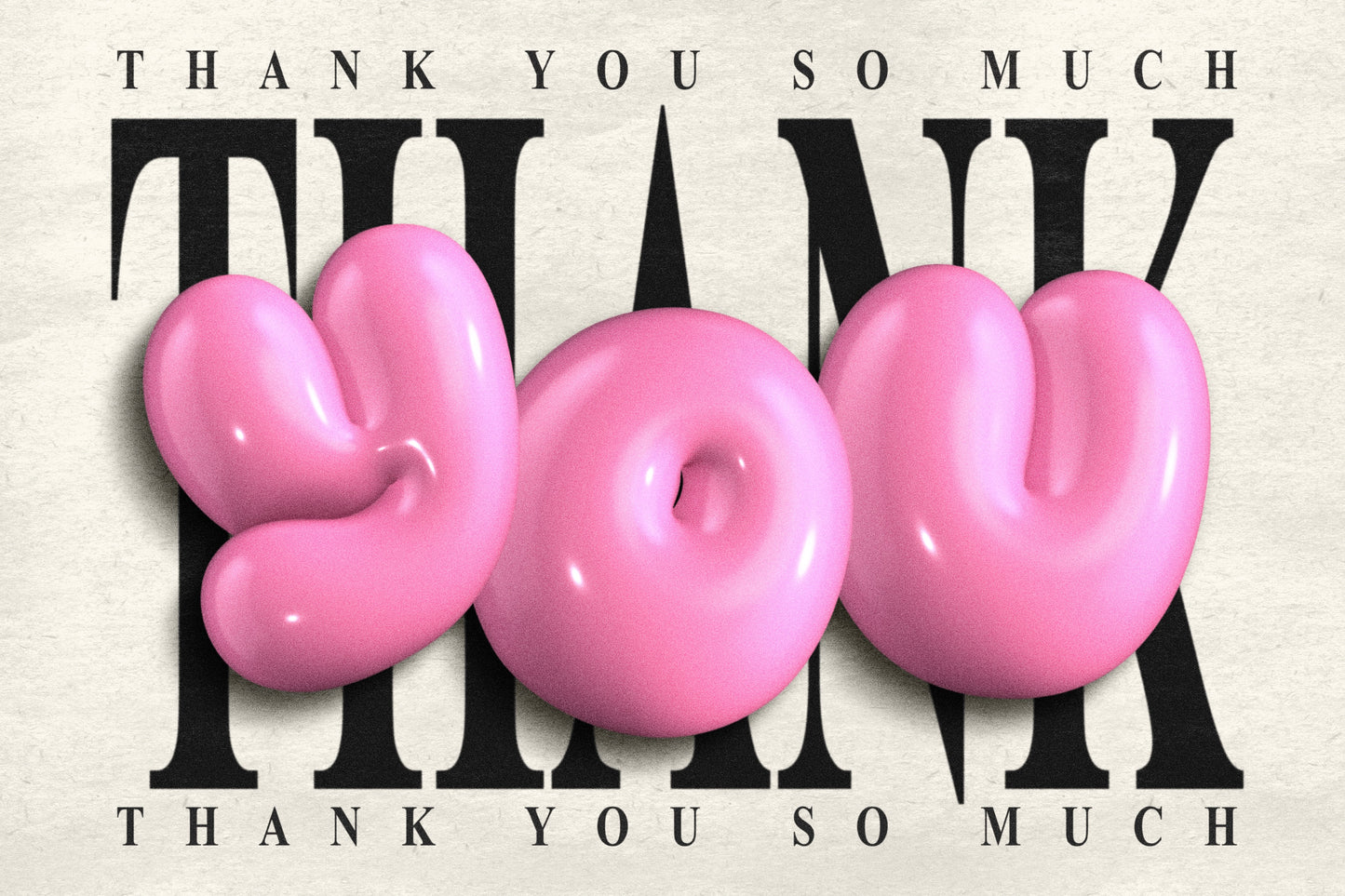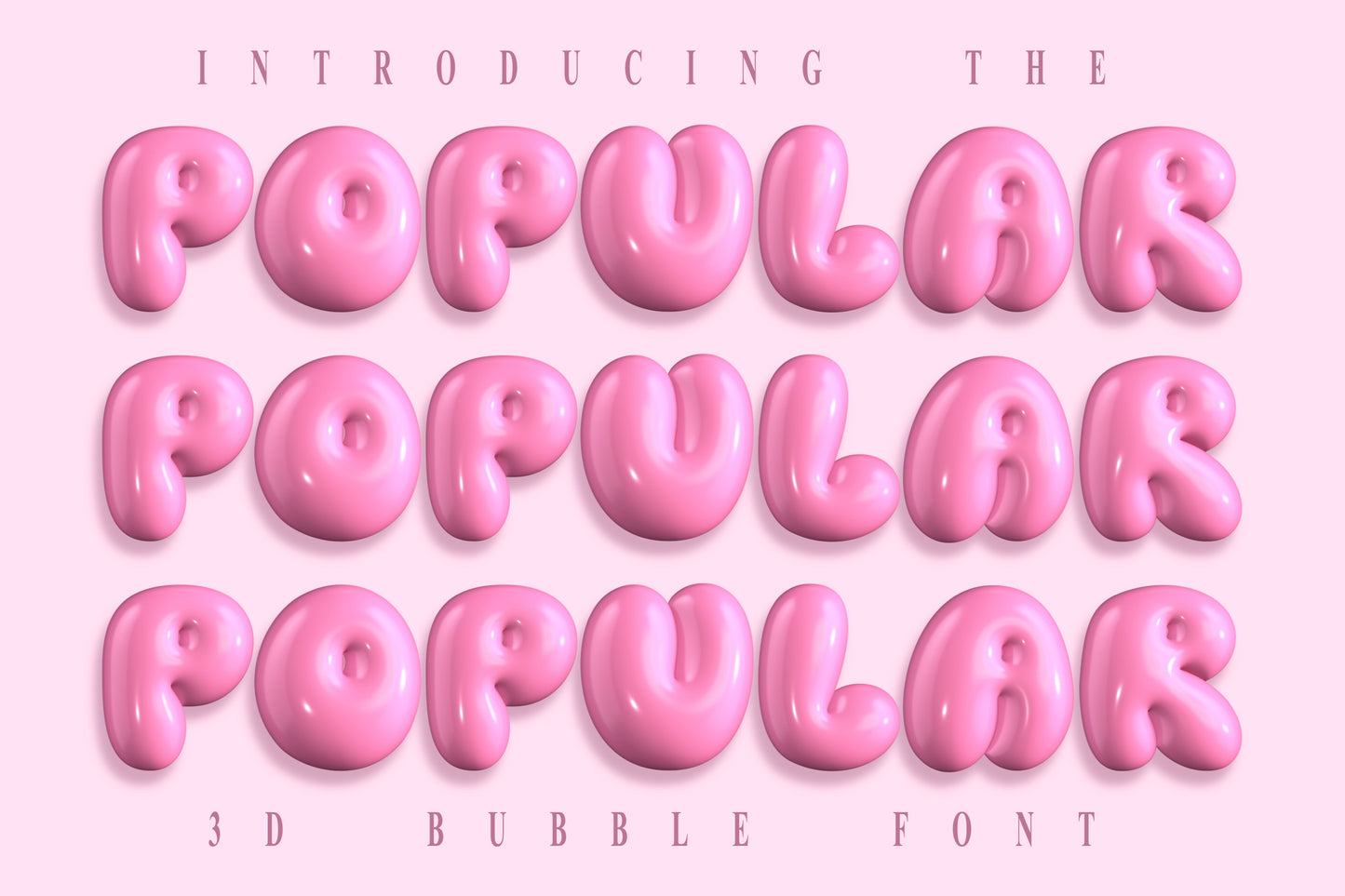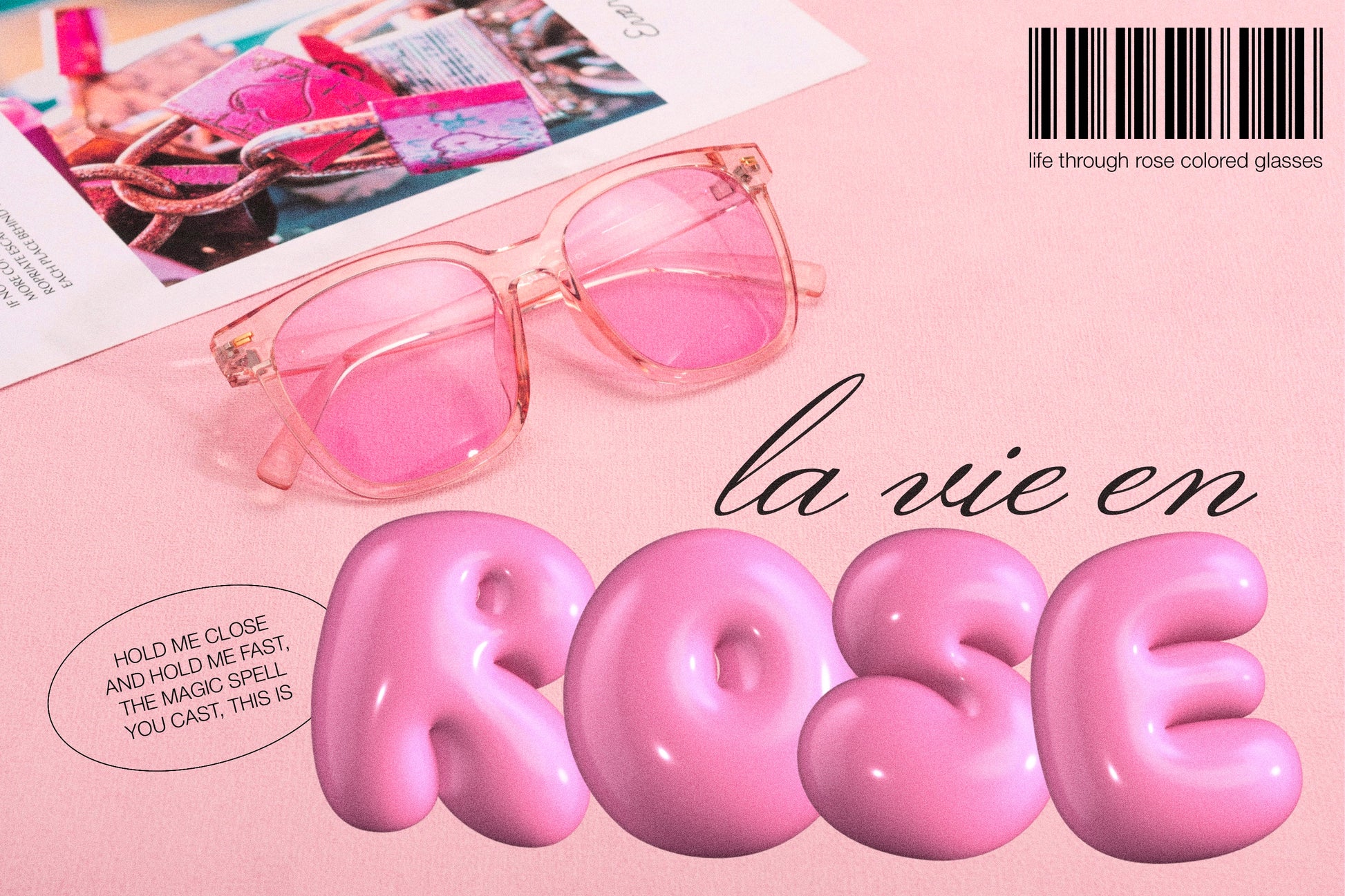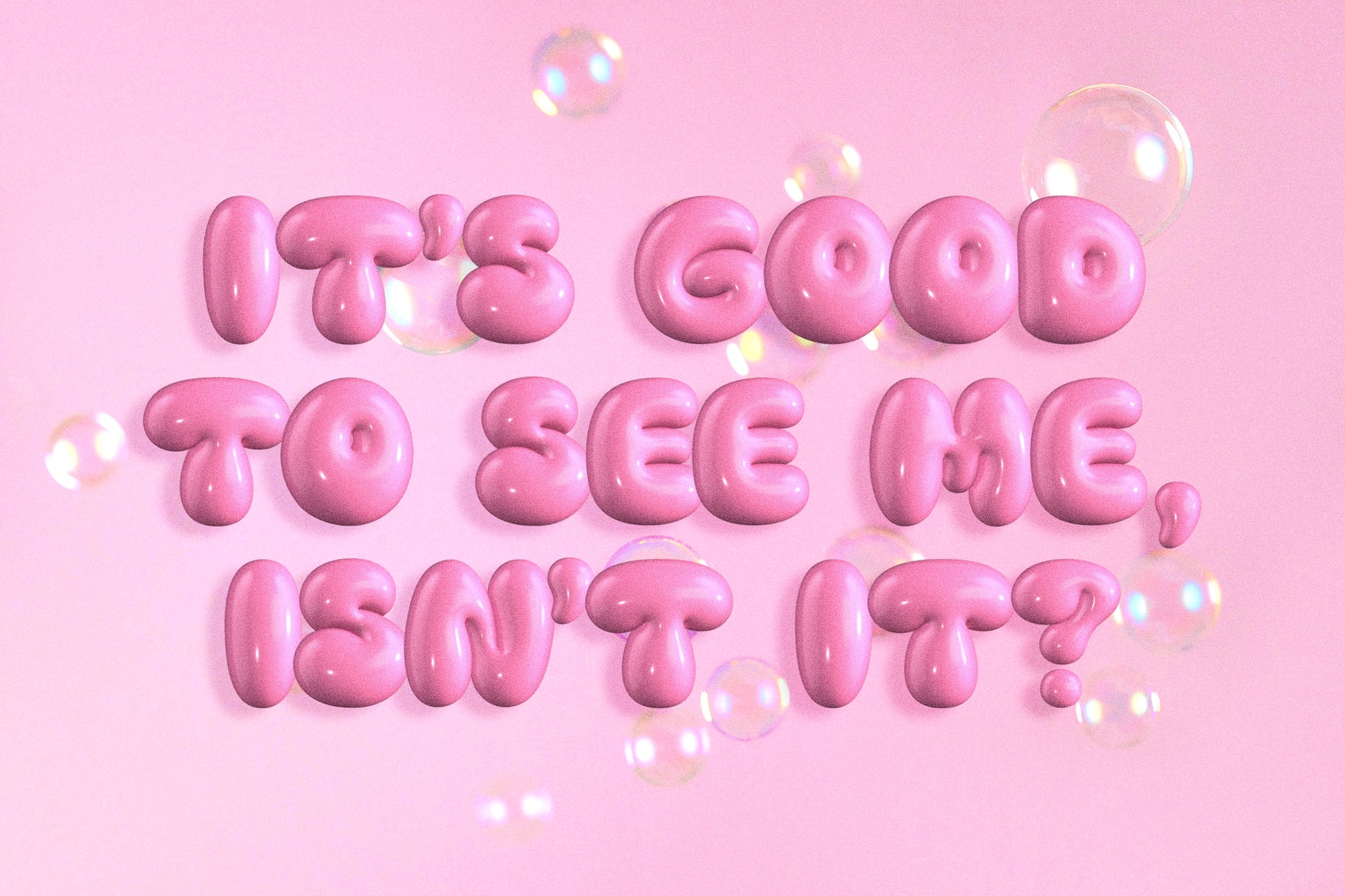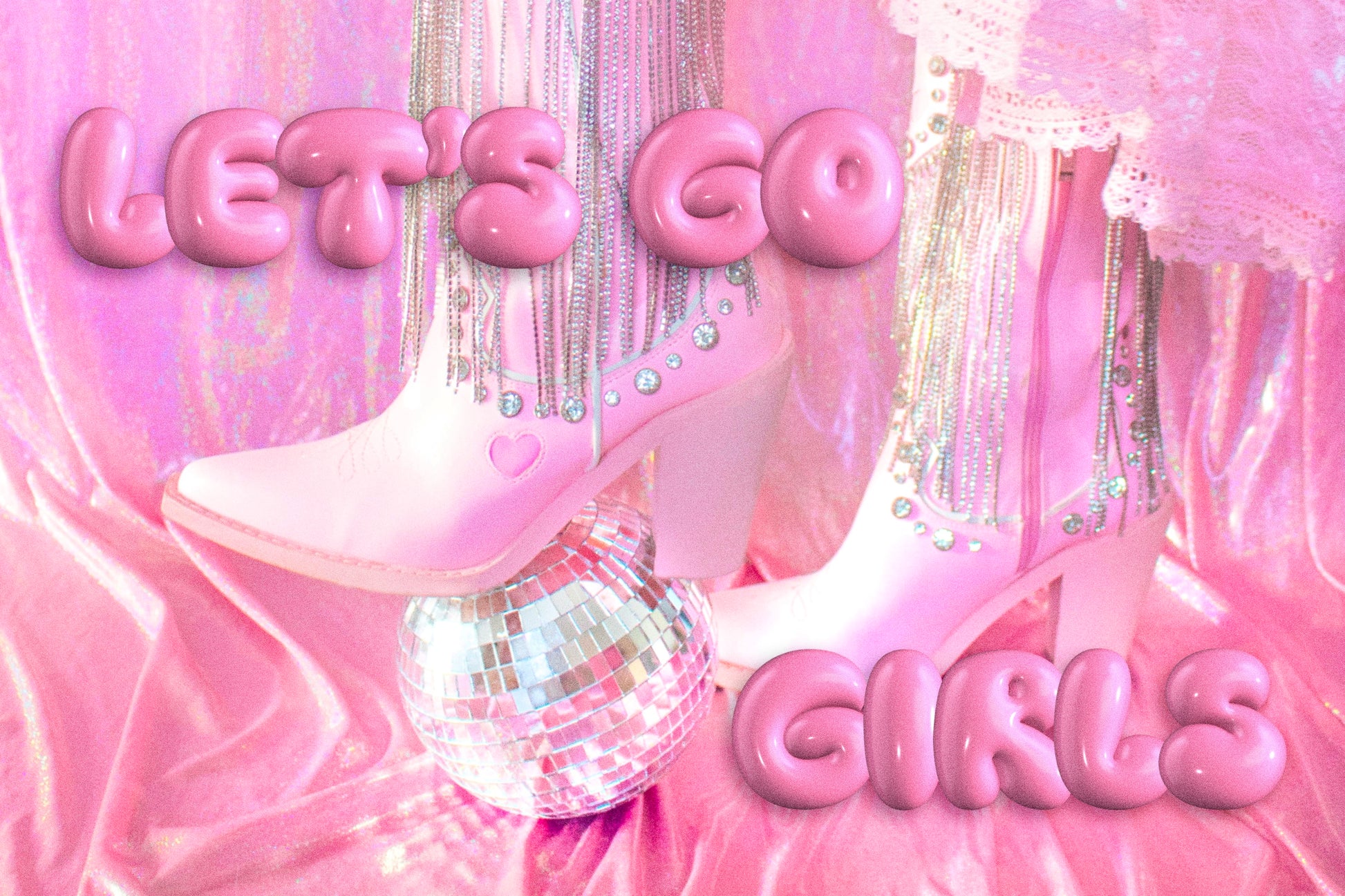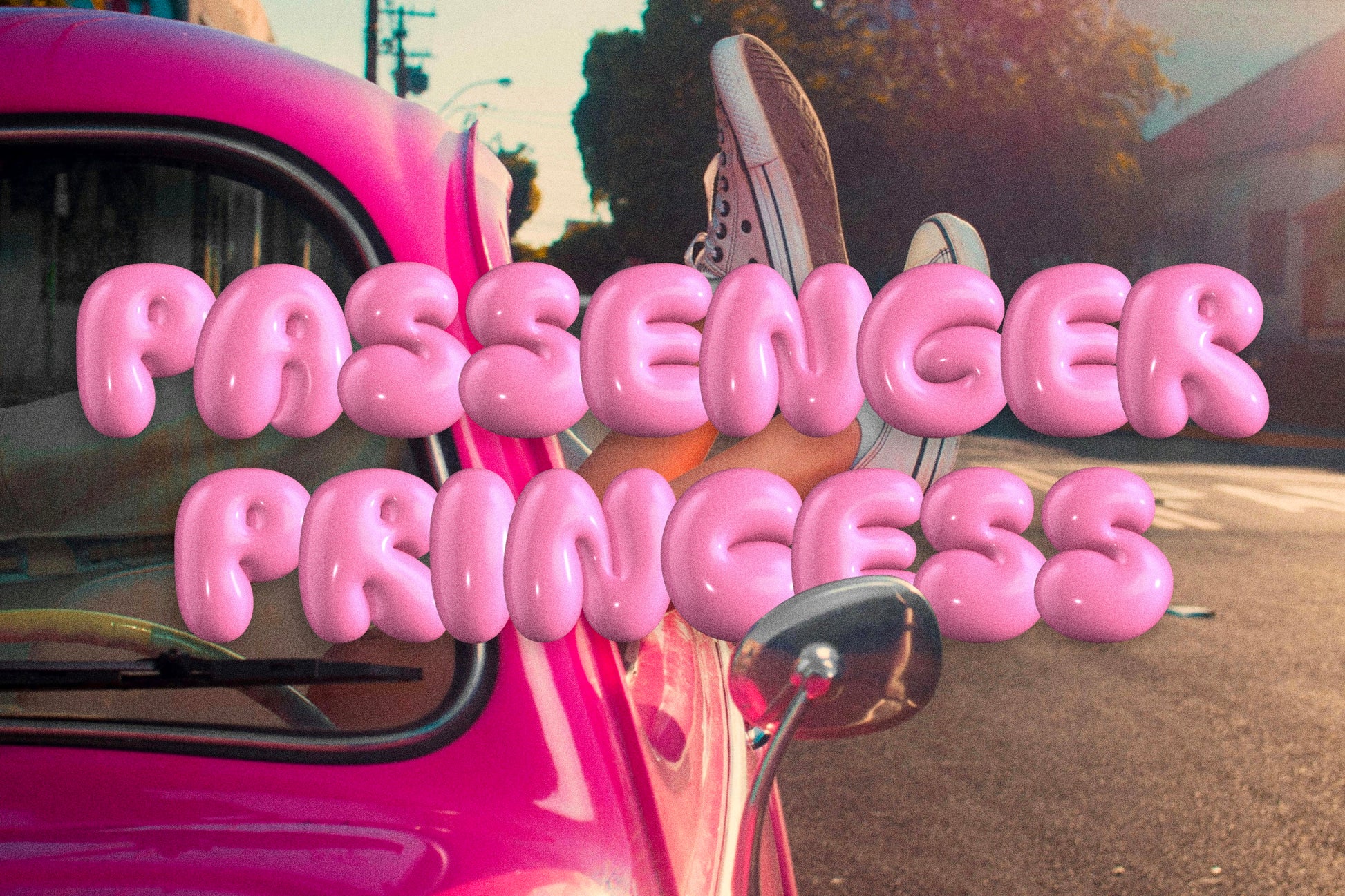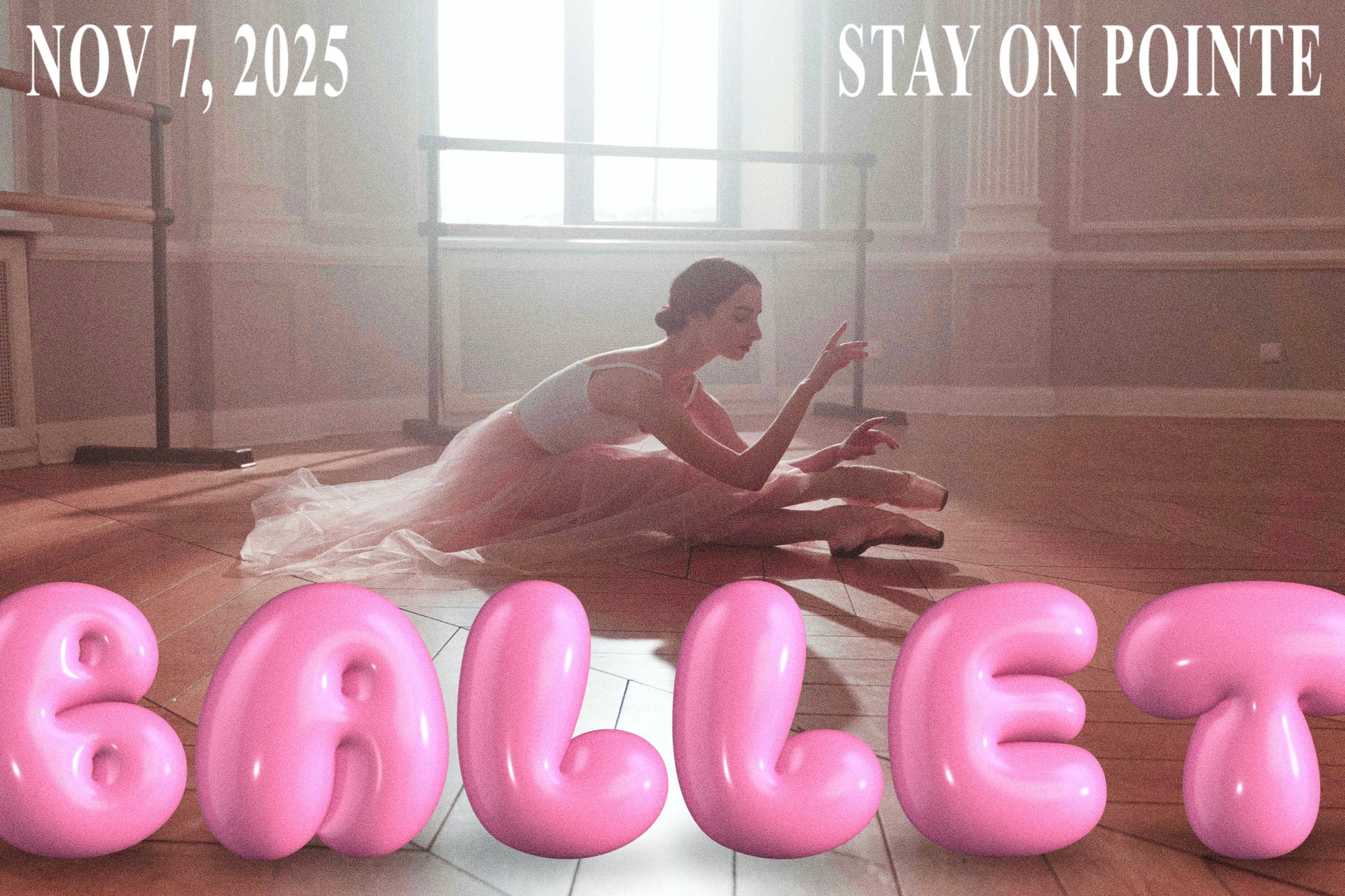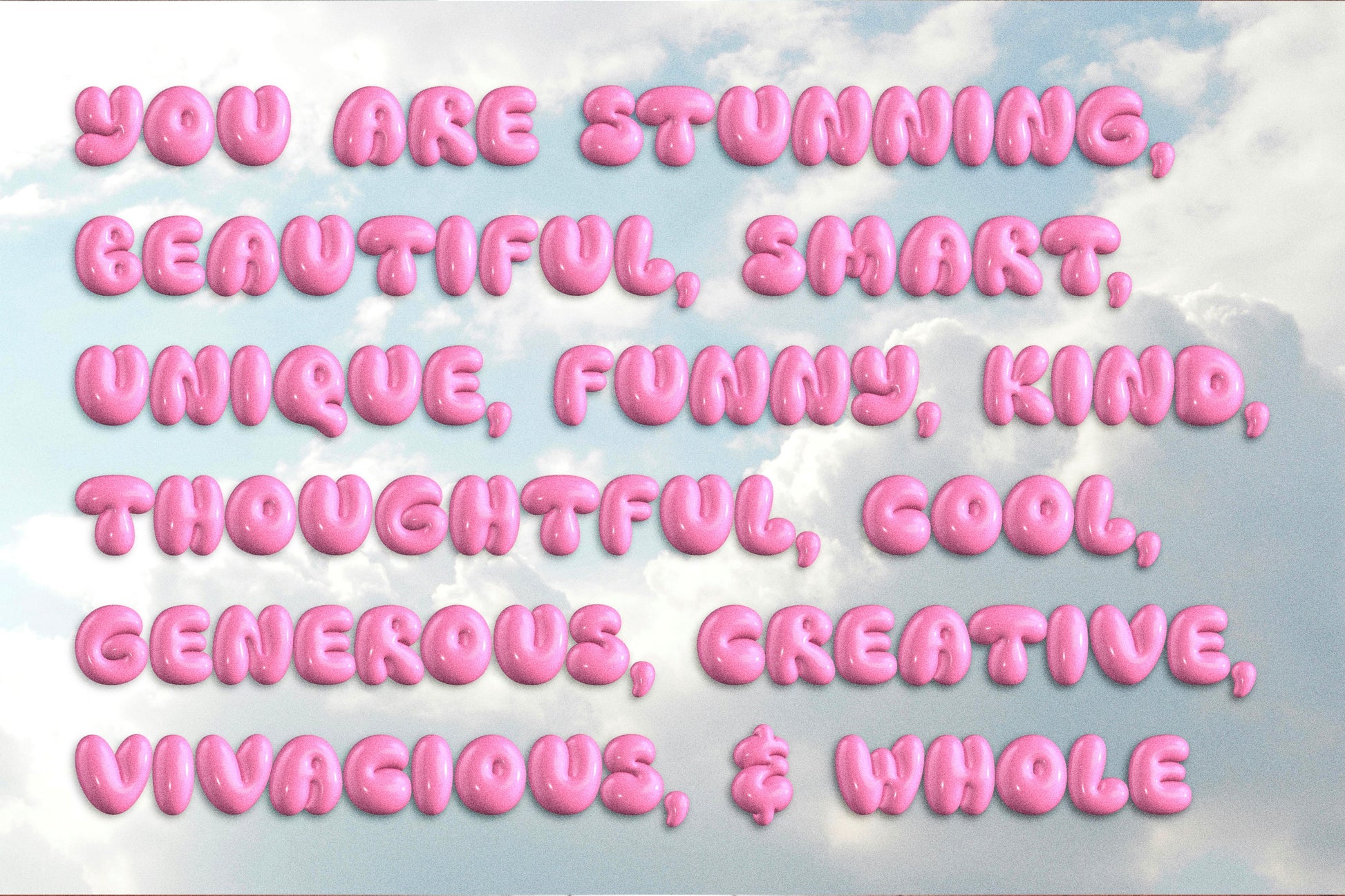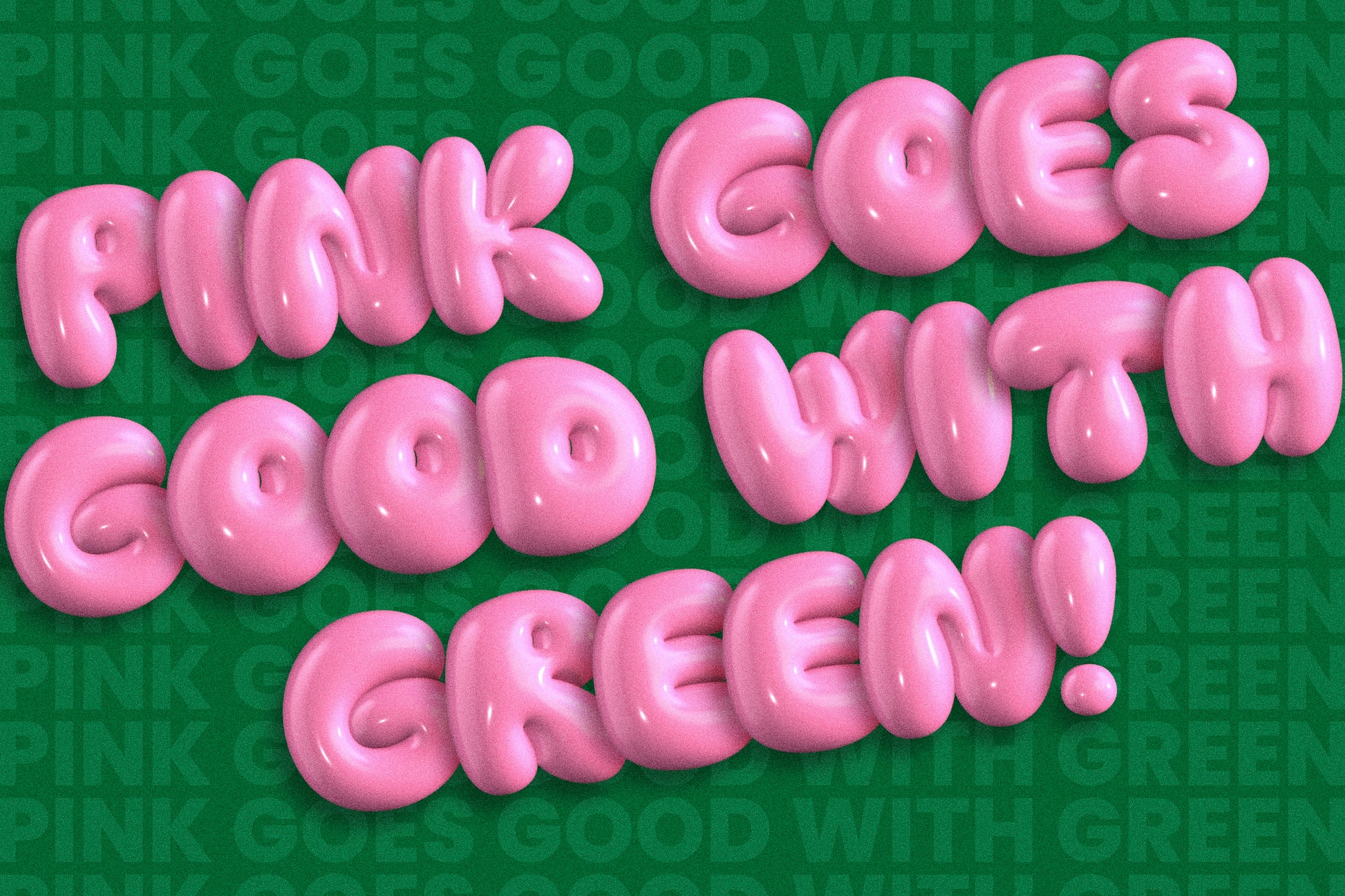
Popular | Bubbly 3D SVG Color Font
Introducing the Popular 3D color font! This unique, bubbly hand drawn font is super puffy with a highly glossy shine to it. It would be absolutely perfect for casual, playful designs on stickers, invitations, flyers, t-shirts, posters, children’s branding, magazines, and much more!